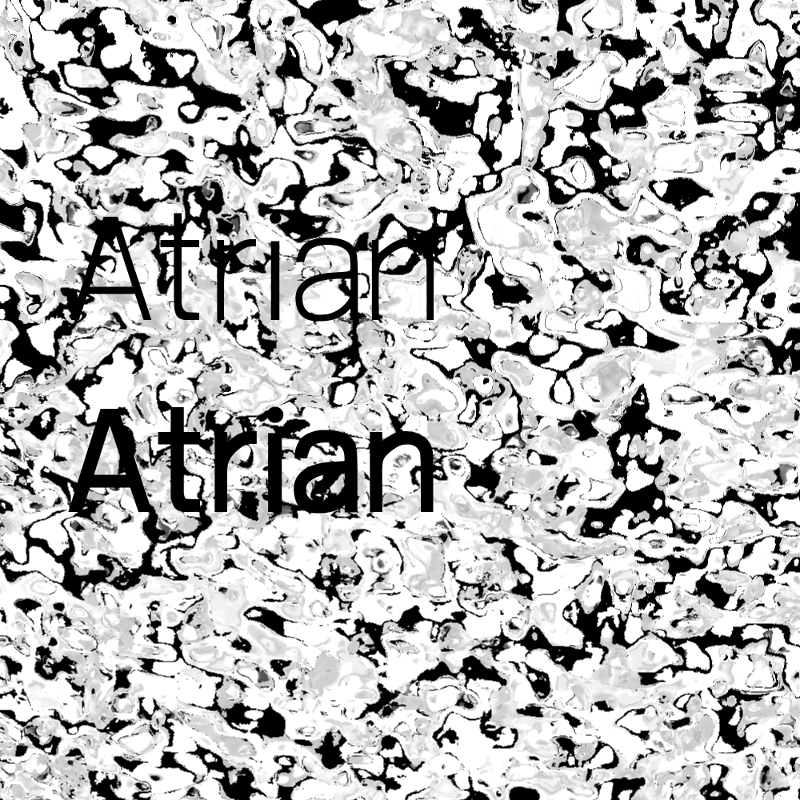
This is Atrian. Developed as a more streamlined version of my previous custom-made typeface, Arctik, it's available in 2 weights, and is completely free to use! More than 2 years in the making, Atrian takes inspiration the applied fuzziness in physical space of neo-grotesque fonts like Helvetica or Rail Alphabet, applied to more modern and humanist curvature, inspiration coming from fonts like Roboto, and Frutiger. The font appears human, and hand-crafted, with tiny irregularities in the thickness and curves adding to its character. Atrian includes a full upper and lowercase alphabet, with numbers, punctuation, and some extras. It's available in 2 weights, all included in the zip package, alongside the promotional artwork and some advice and information on licensing. Enjoy! |